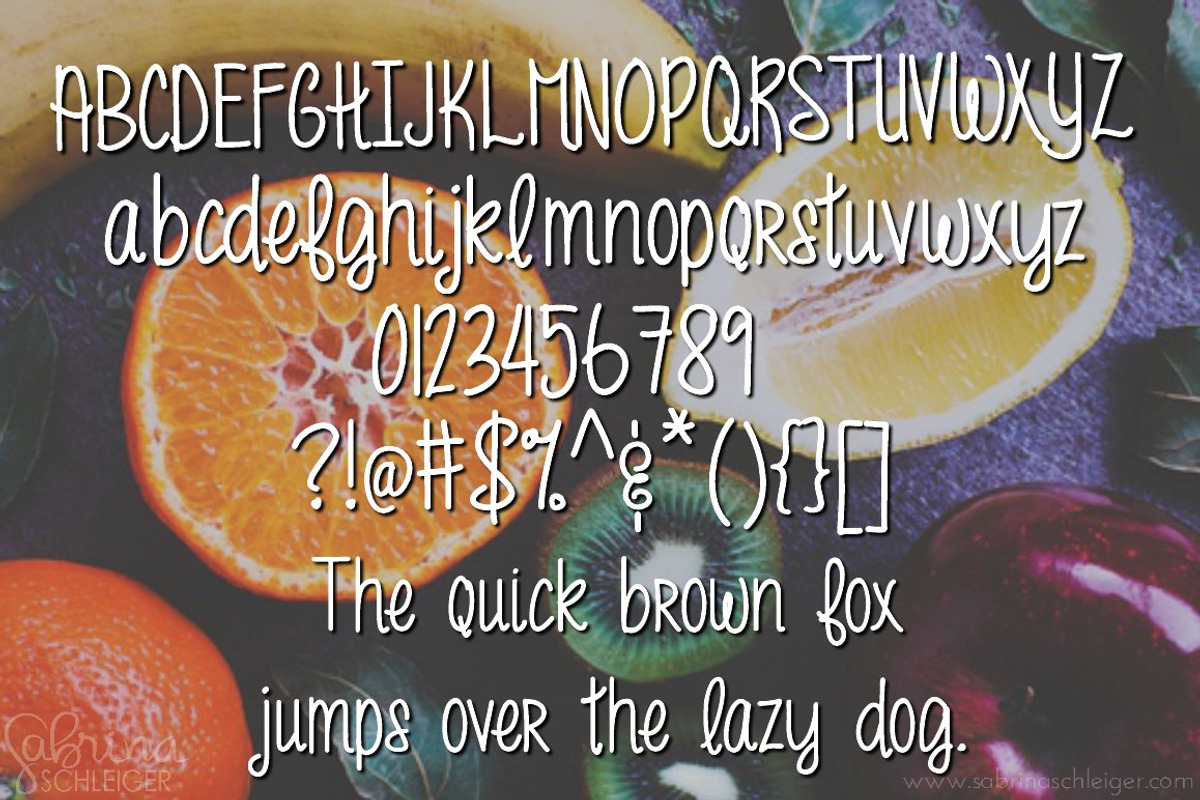
funky fresh- handwritten font
funky fresh- handwritten font by Sabrina Schleiger Design is a font selected for branding, posters, packaging, typography.
- This font now includes Latin extensions to support many European languages!
funky fresh- handwritten font by Sabrina Schleiger Design fits naturally into Branding, posters, packaging, typography.